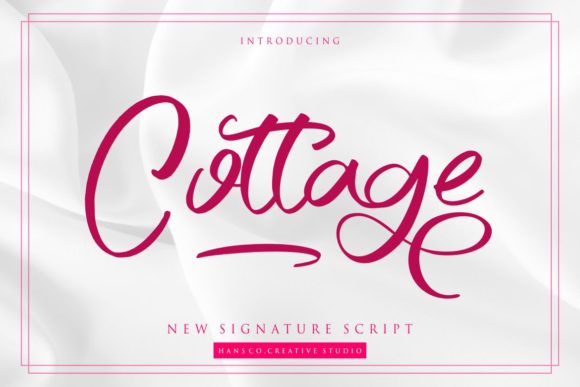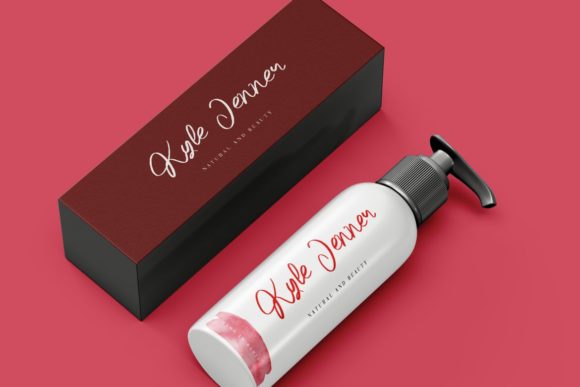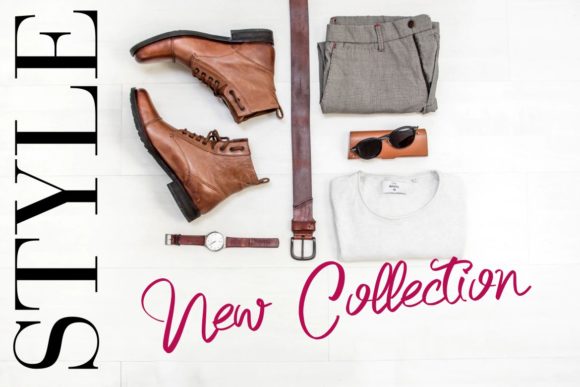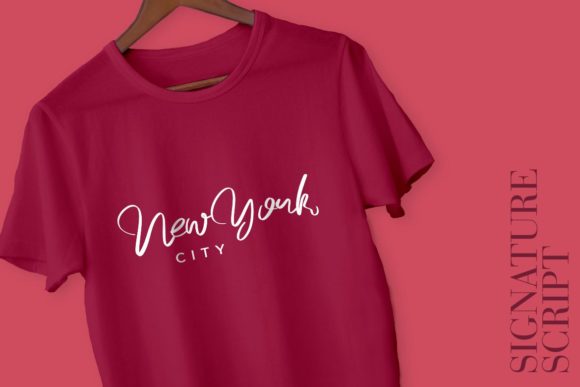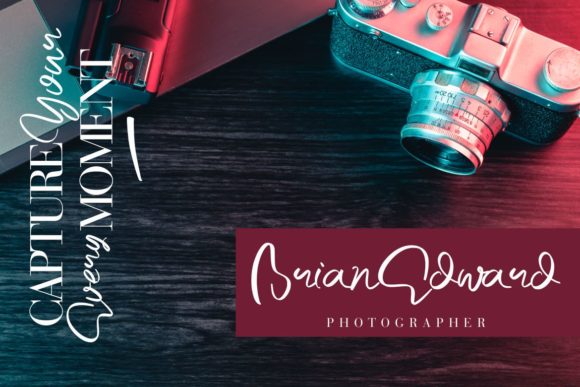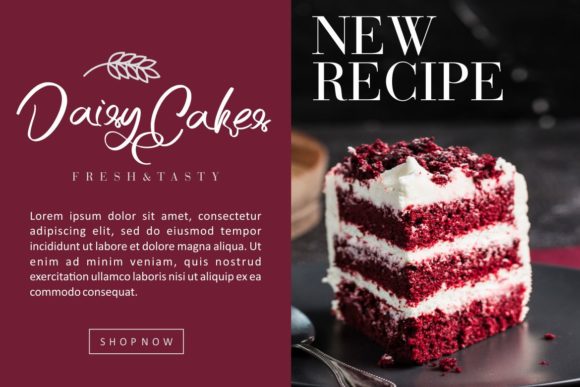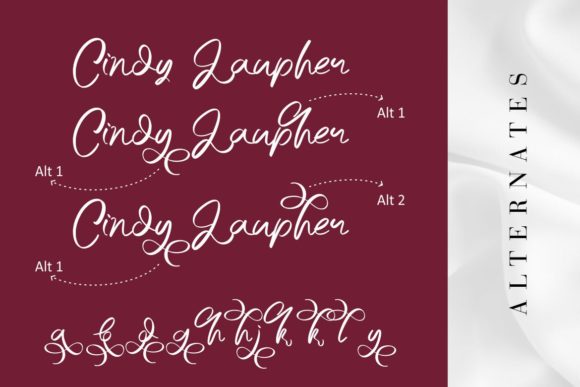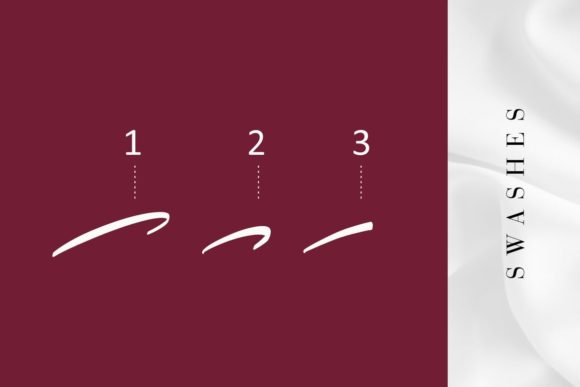
HomeScript FontsCottage Font Script Fonts Cottage Font FacebookXPinterestWhatsApp Cottage Font Poster 2 Cottage Font Poster 3 Cottage Font Poster 4 Cottage Font Poster 5 Cottage Font Poster 6 Cottage Font Poster 7 Cottage Font Poster 8 Cottage Font Poster 9 About Cottage Font Cottage is a fun and sweet handwritten font. It will add a romantic style to any crafting project. DOWNLOAD ON CREATIVE FABRICAThis font is sold and delivered by Creative Fabrica. Font Canyon may earn a commission if you buy through this link. People also explored Couture Berryspickers Font Amazing Font Daralis Font Moontiland Font Valentina Script Font Beside Font Aligano Font White Frame Mockup with Magenta Pink Tulips 273 0 TagsCottage Font Previous articleStella FontNext articleSaltacrus Font LEAVE A REPLY Cancel reply Comment: Please enter your comment! Name:* Please enter your name here Email:* You have entered an incorrect email address! Please enter your email address here Website: Save my name, email, and website in this browser for the next time I comment. Personal Use Free Larosh Sithal Duo Personal Use Free Read more about this font Adriator Personal Use Free Read more about this font Hatchill Personal Use Free Read more about this font Breather Personal Use Free Read more about this font BLOG Fonts That Capture the Spirit of New York City New York City is more than just a place—it’s an experience, a rhythm, a visual language... Free vs Paid Fonts: Why Investing in Premium Fonts Is Worth It Exploring Font Trends Where to Buy American Fonts Online in 2024